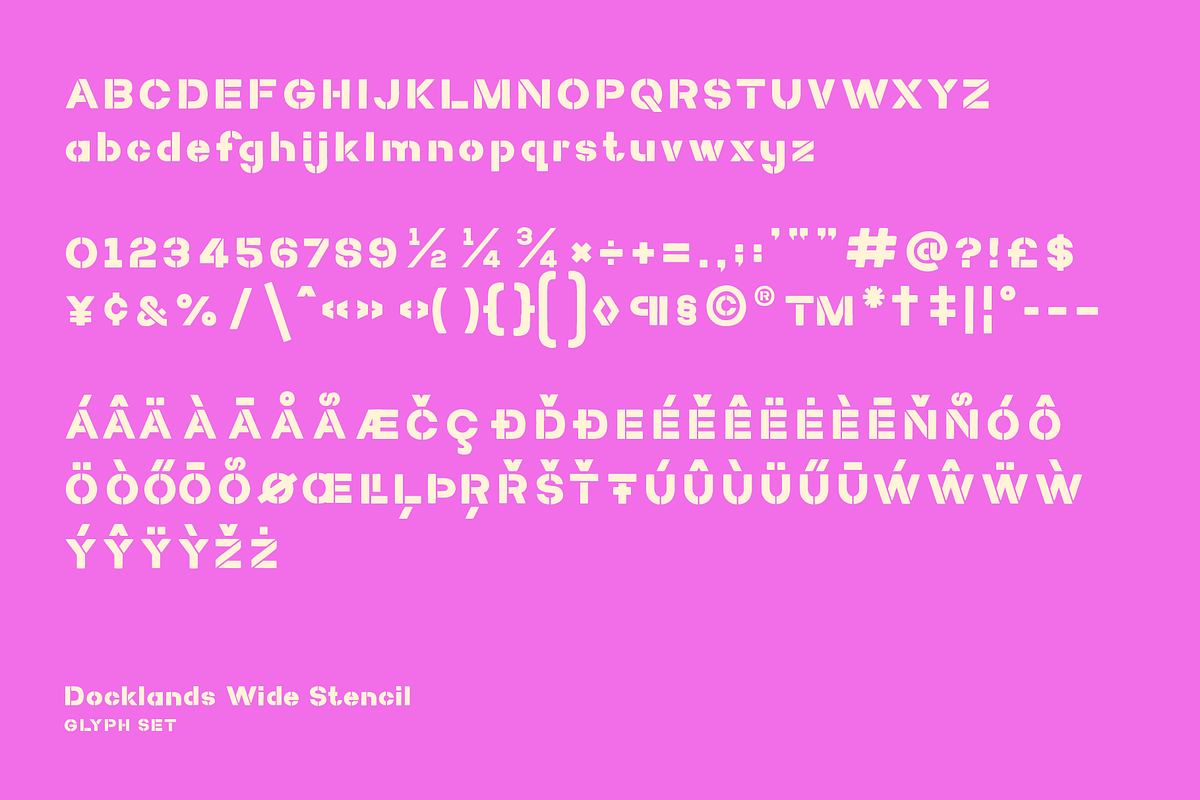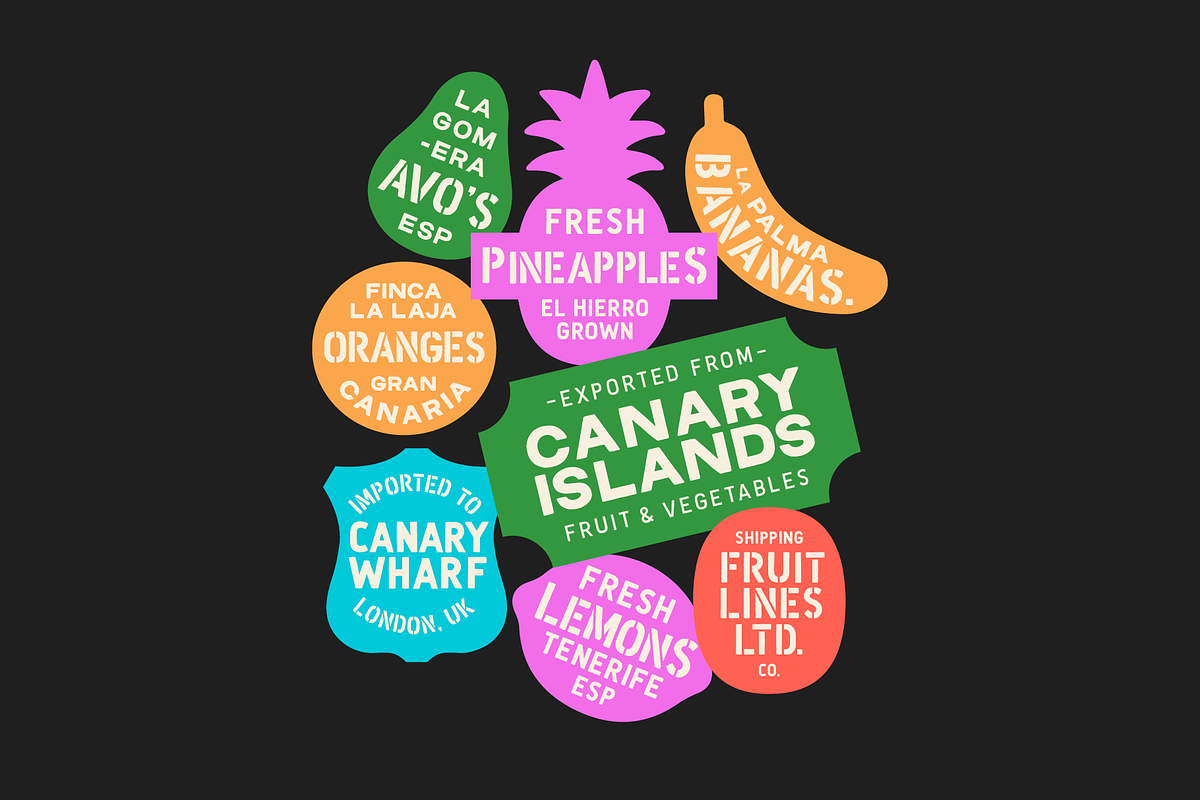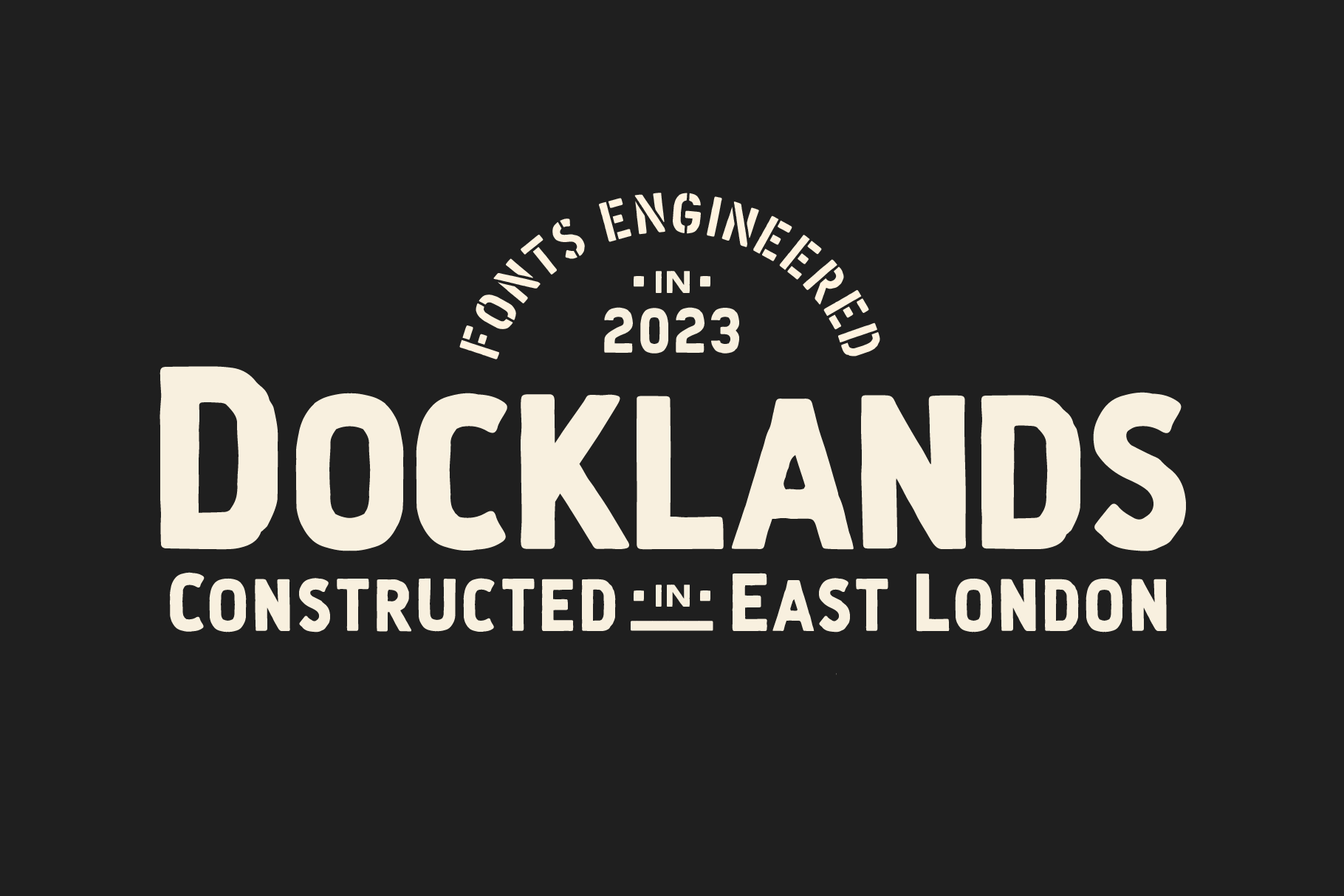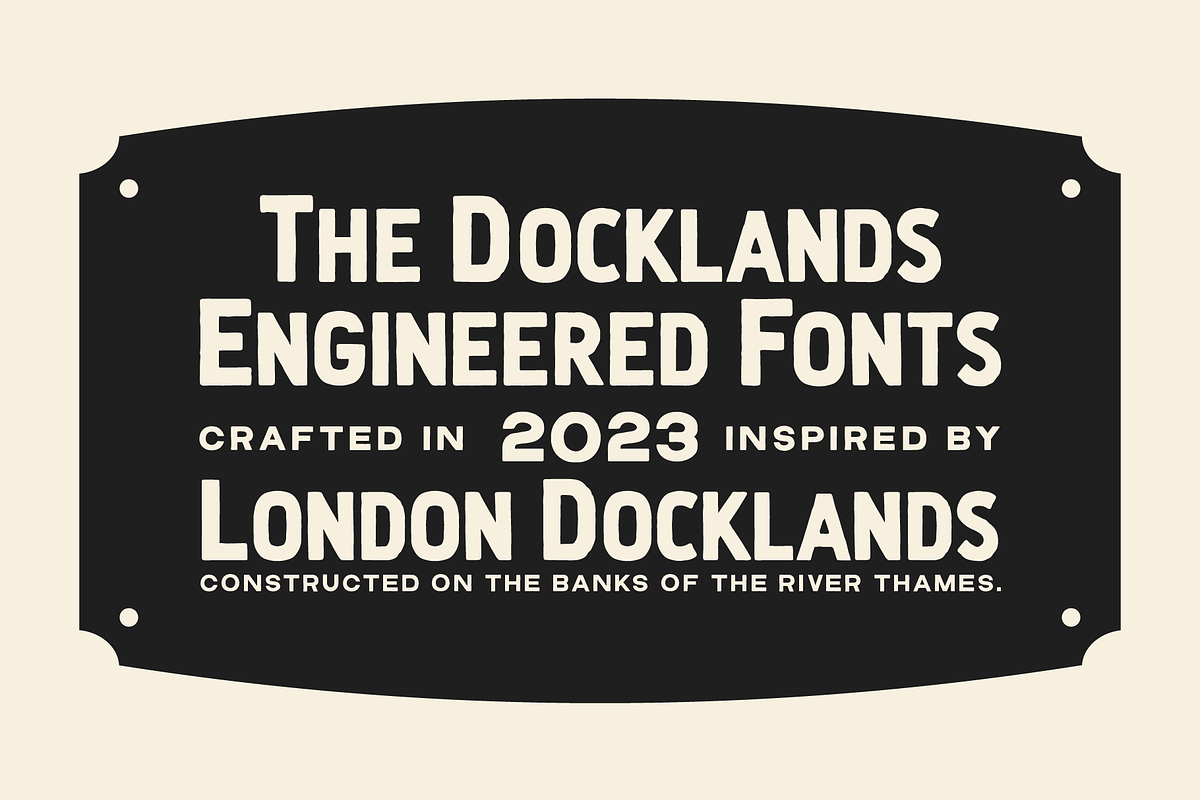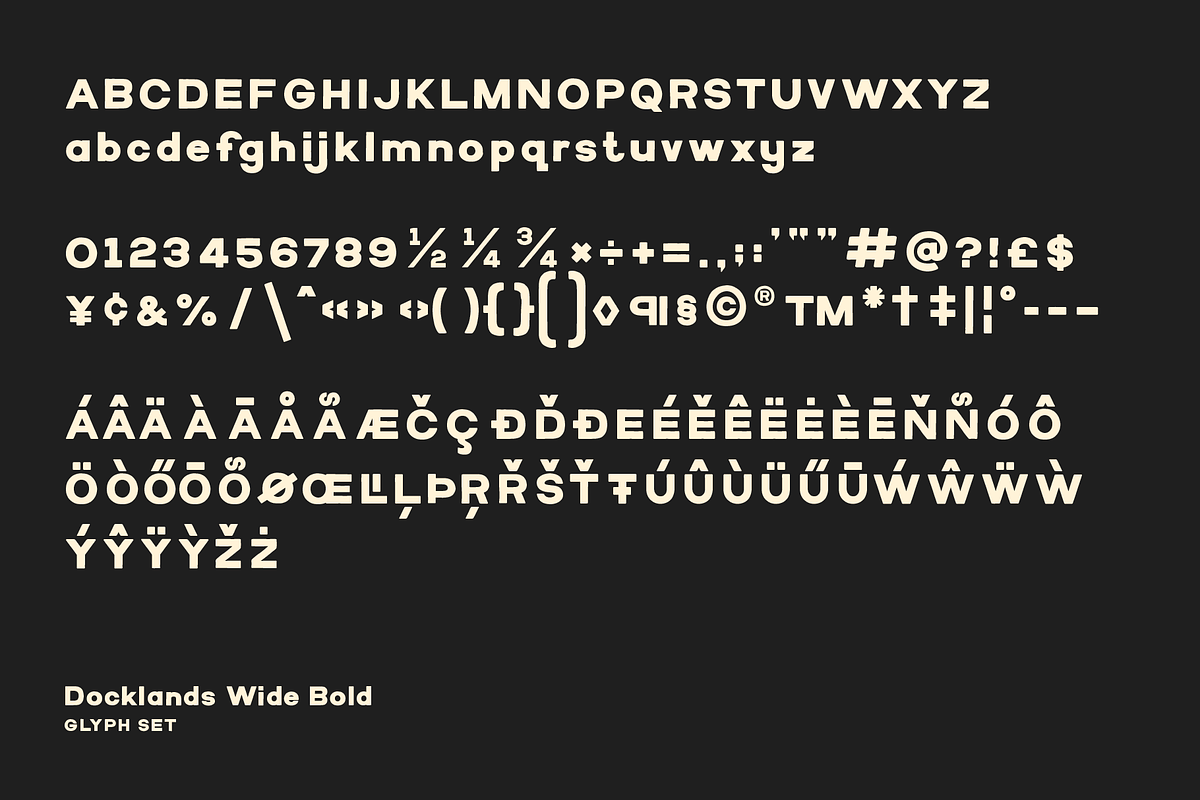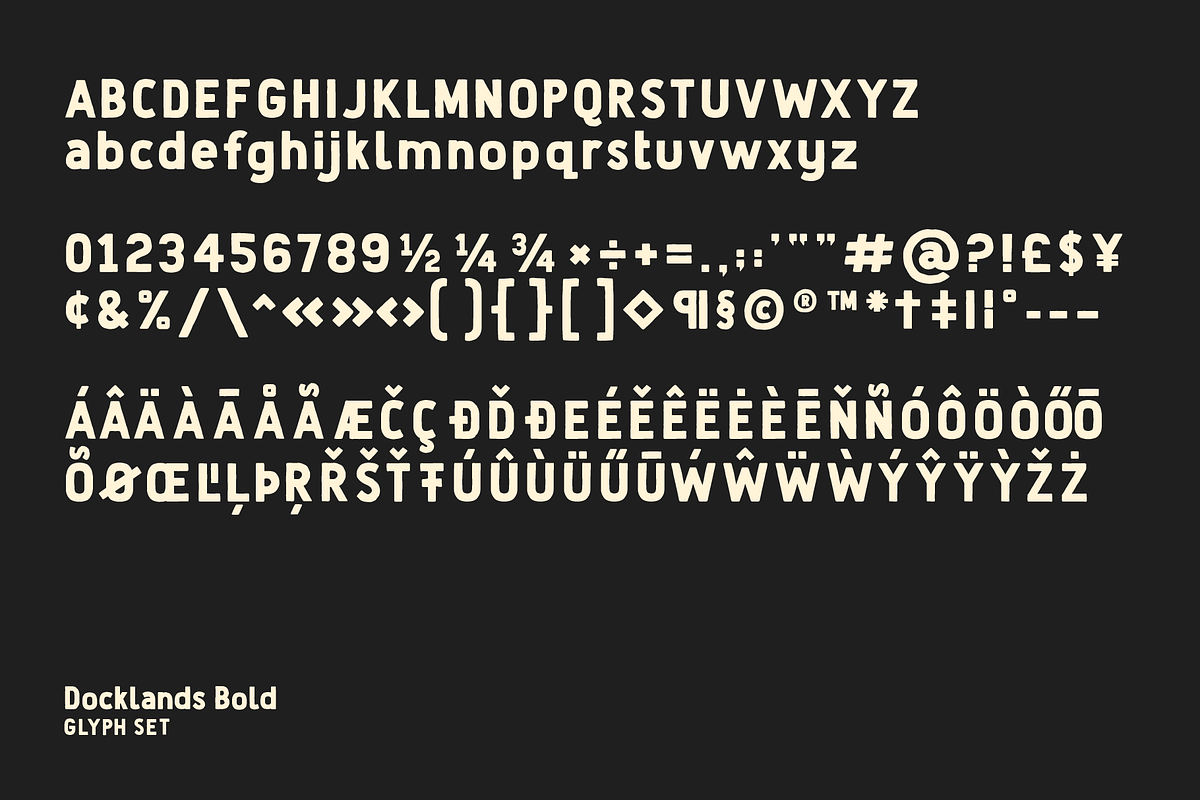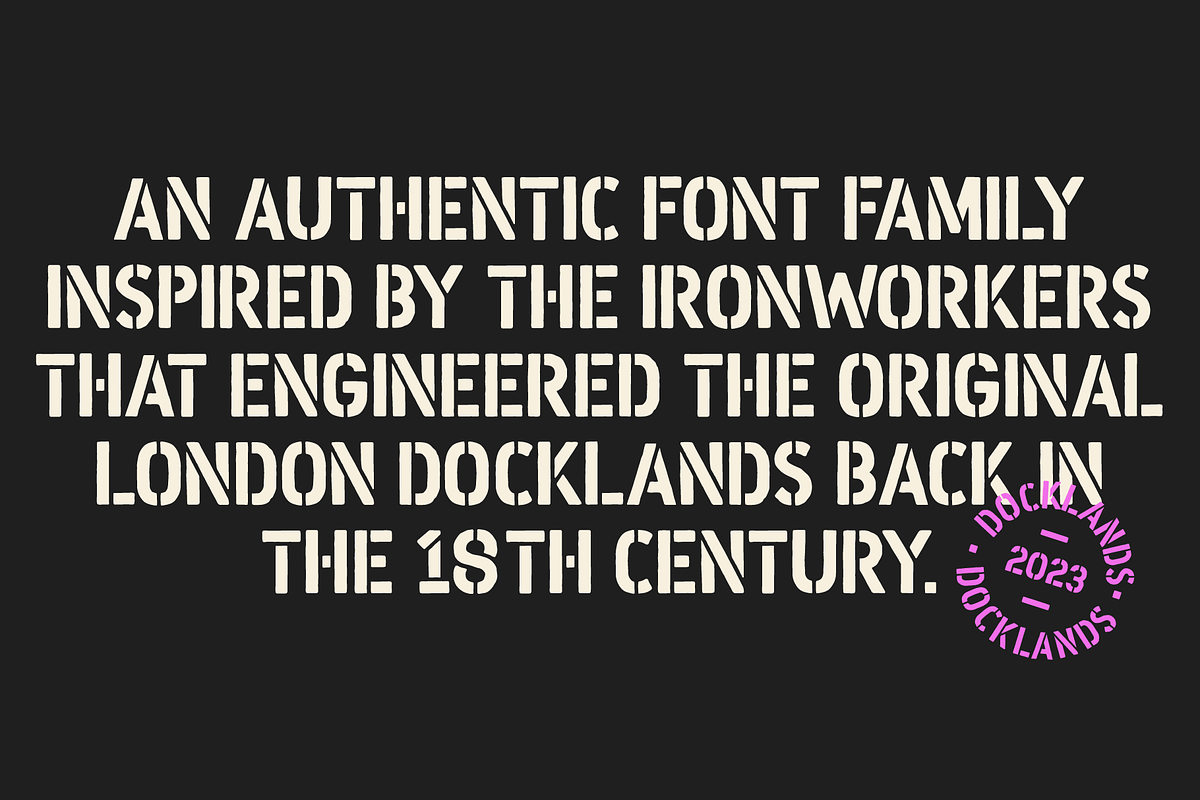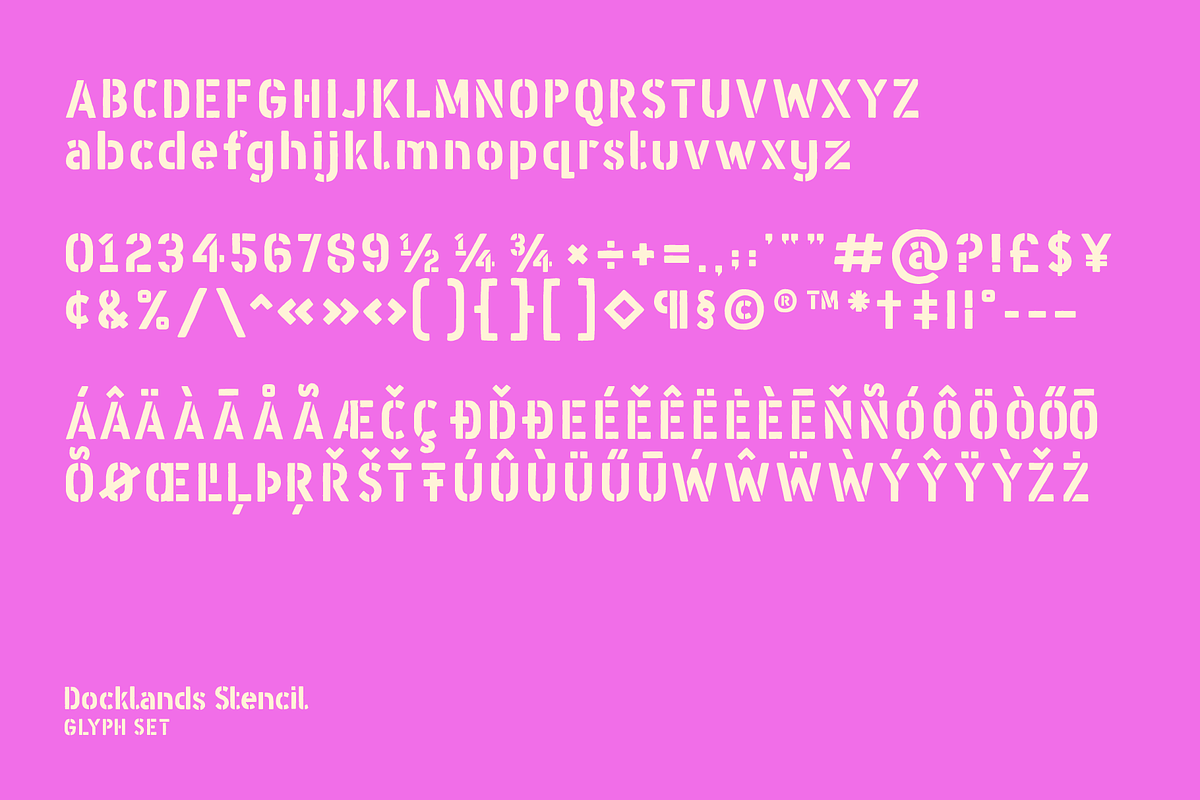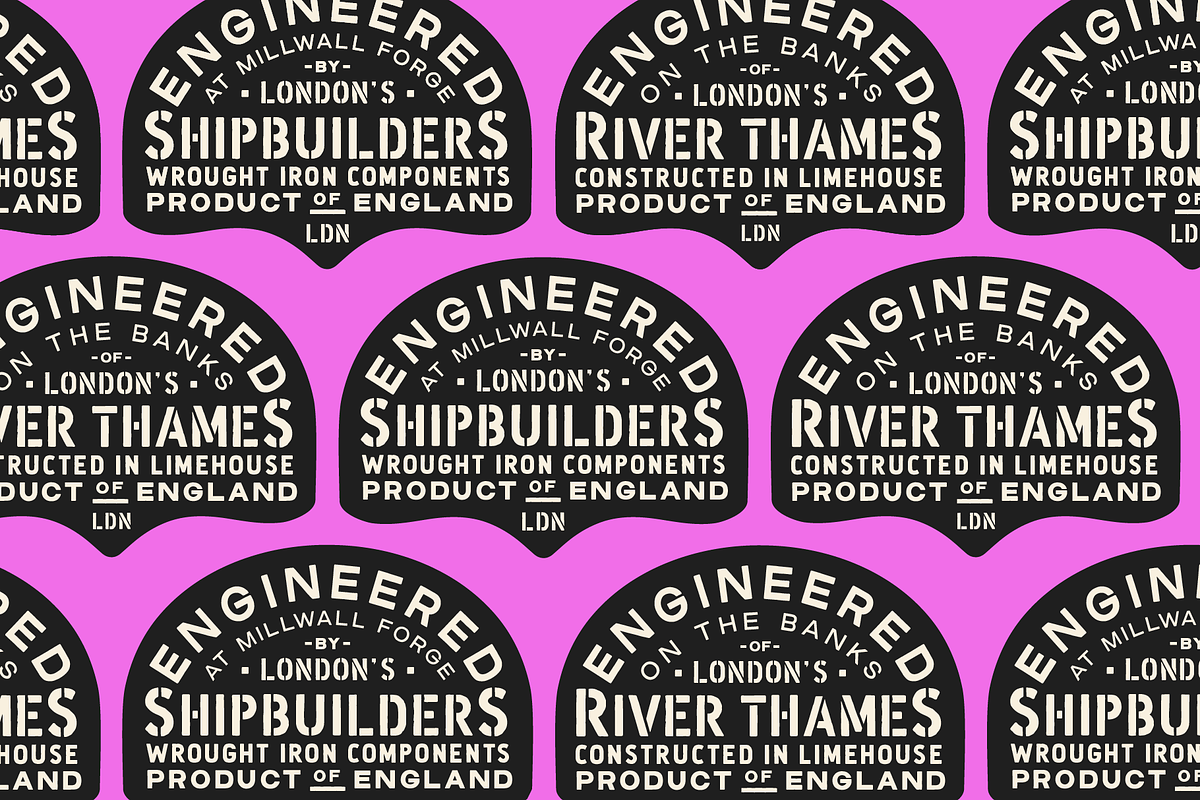
Docklands Font Family
An authentic collection of engineered fonts, constructed in East London.
Docklands is a handmade font family inspired by the creation of the London docks in the early 18th century. The rough edged sign written style is evocative of the era when iron works and boatbuilding wharfs lined the River Thames.